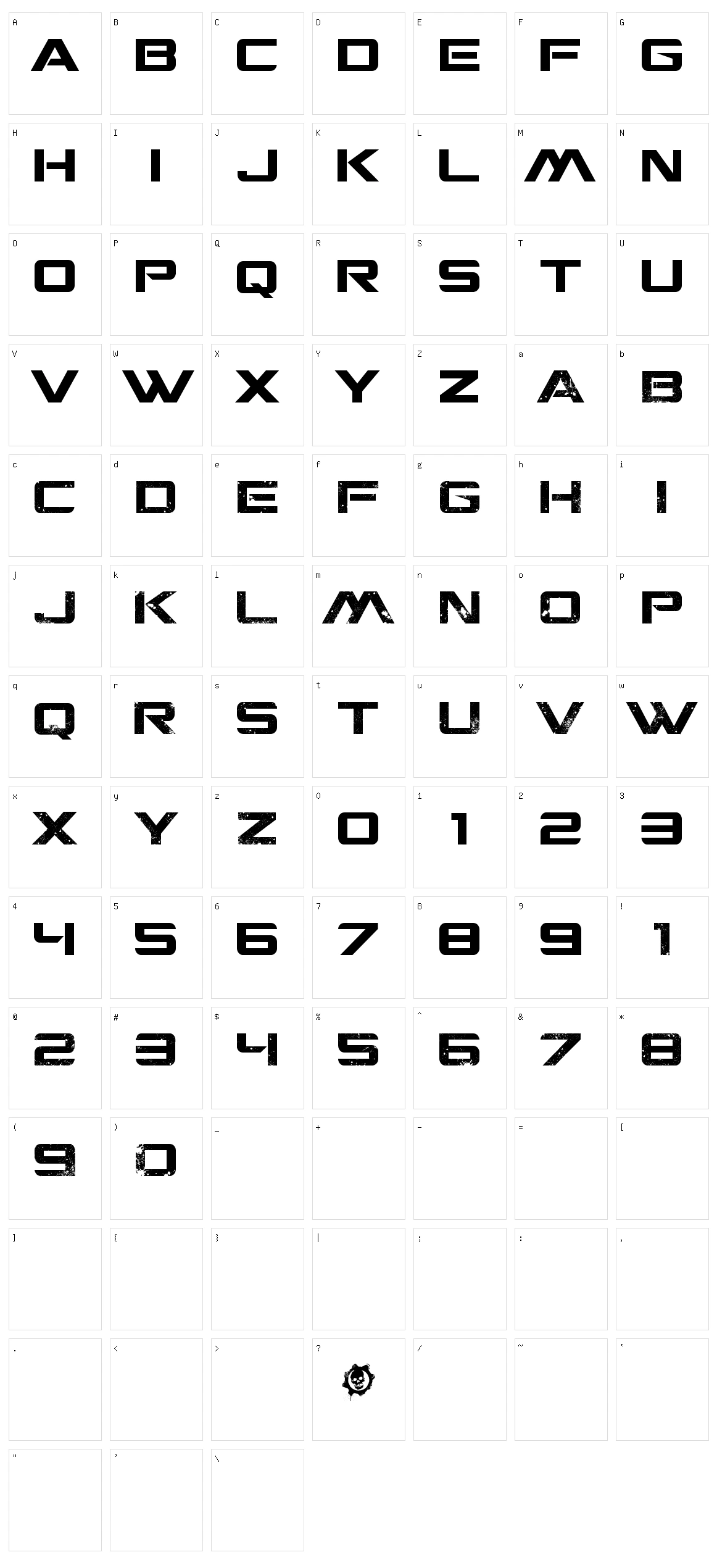
CGF Locust Resistance
Description: The free font CGF Locust Resistance is carefully designed by CGF Chris Garrett Fonts, showcasing a thoughtful balance of creativity and usability and belongs to the Techno font family. When you download the ZIP file, it contains only 109.14 KB of font files, making it lightweight and quick to download. Please review the license details below to understand permitted usage and distribution rights. If license information is not available, we recommend using this font for personal projects only or contacting the author directly for commercial usage permissions.
CGF Locust Resistance FONT!
There are 2 fonts included, CGF Locust Resistance(Caps are clean, Uncaps are a little dirty) and CGF Locust Resistance Massacre(Uncaps intensely Dirty, Caps "dirty")
ALSO: To type the Gears of war skull symbol on either font, Press the Question mark (?).